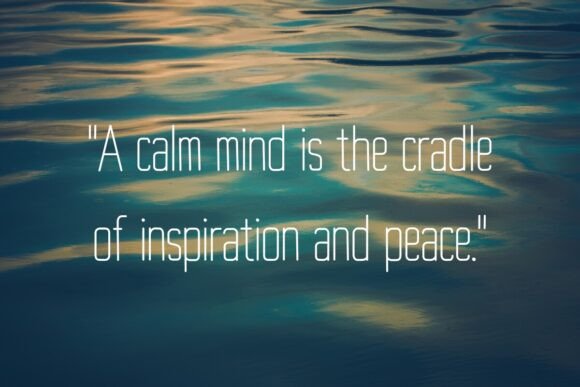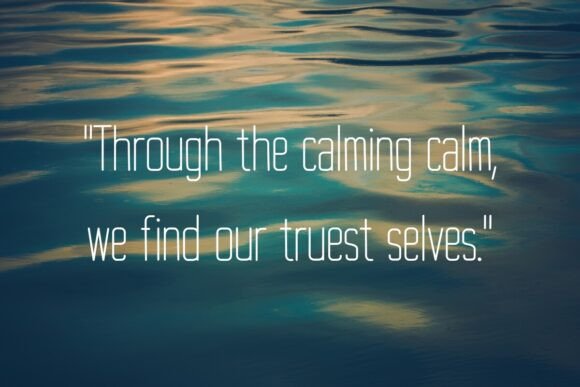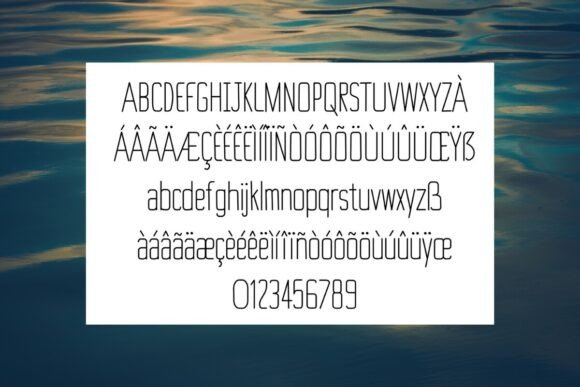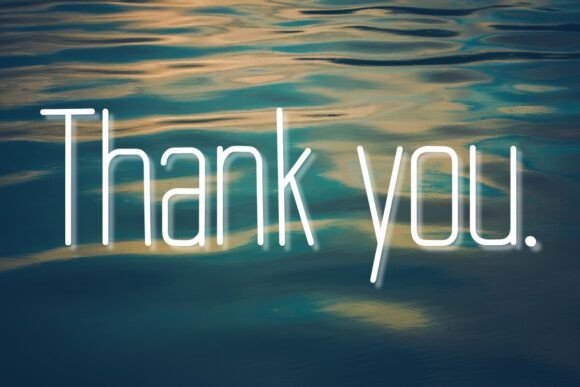
Introduction to Calming Came Font
Calming Came is a sleek, minimalistic, and modern sans-serif font designed for versatile usage.
Its smooth lines and calming aesthetic make it perfect for inspirational quotes, branding, digital designs, social media posts, and creative projects Whether youโre designing a motivational graphic, crafting a unique logo, or enhancing your marketing materials, this font will add a touch of elegance and clarity.
Key Features of Calming Came Font
Why Choose Calming Came Font?
Calming Came Font offers exceptional quality and versatility, making it a valuable addition to your design toolkit. Whether you’re creating for personal projects or commercial use, Calming Came Font delivers professional results.